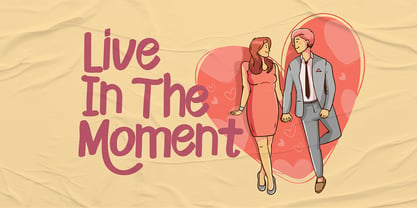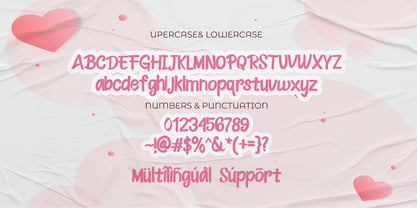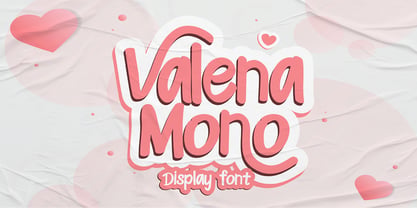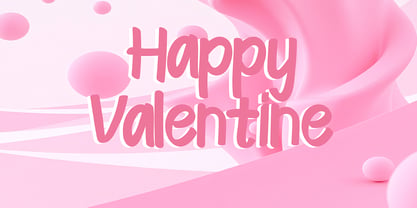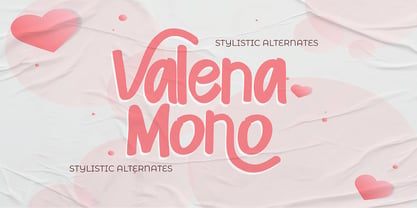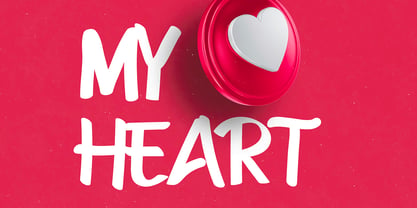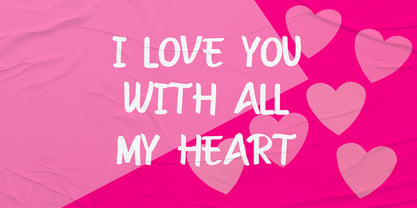
Valena Mono
The Valena Mono Font Family was designed by Sipanji and published by Sipanji21. Valena Mono contains 1 styles. More about this family
Valena Mono is a delightful display font that combines charm and elegance with a modern twist. Its playful yet refined style makes it perfect for adding a touch of sweetness to any project.
🌸 Lovely Aesthetics: With its carefully crafted characters, Valena Mono radiates a warm and inviting vibe, ideal for greeting cards, branding, and social media posts.
Versatile Design: Whether you're working on creative prints or digital projects, this font adapts beautifully to various themes, from romantic to minimalist.
💖 Attention-Grabbing Appeal: The unique letterforms of Valena Mono ensure your designs stand out while exuding sophistication and personality.
Valena Mono is the go-to font for those seeking a stylish and endearing touch to elevate their creative endeavors.